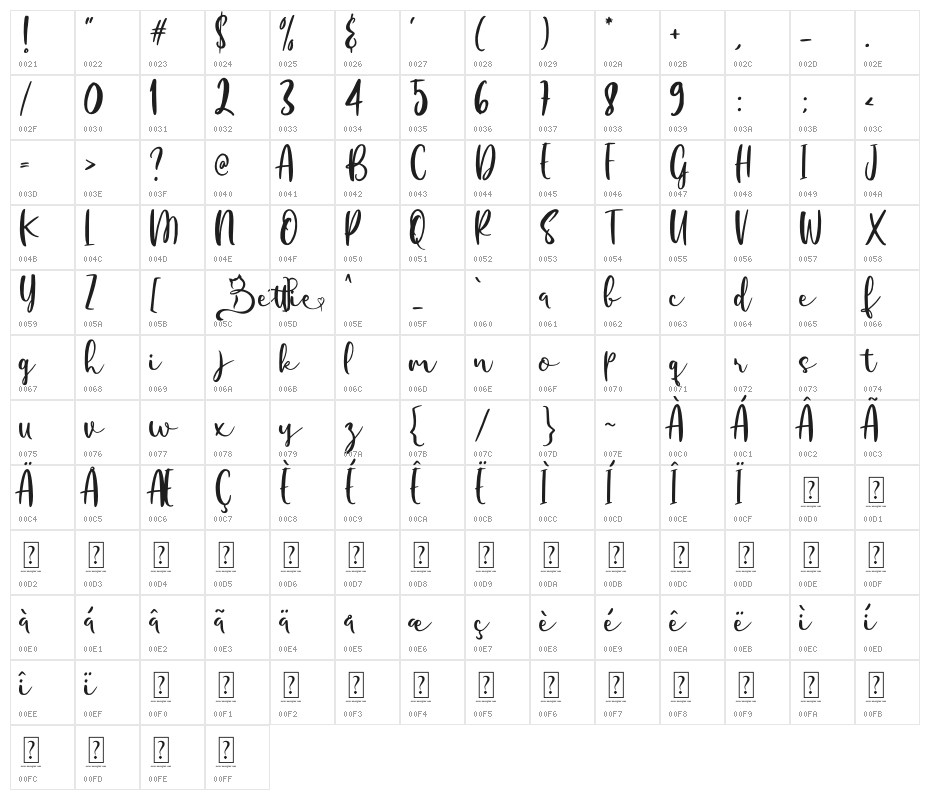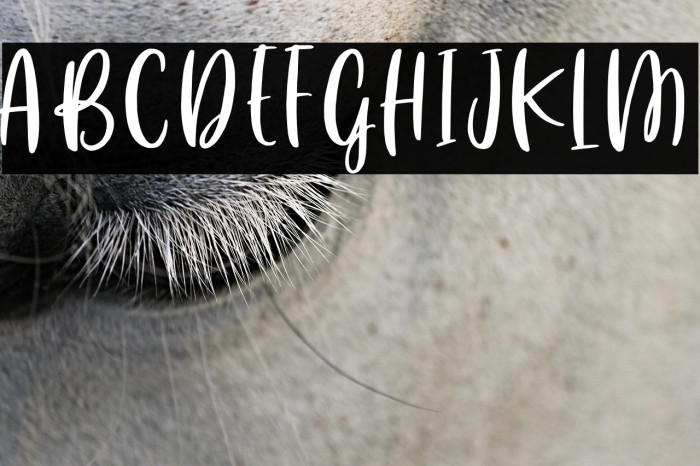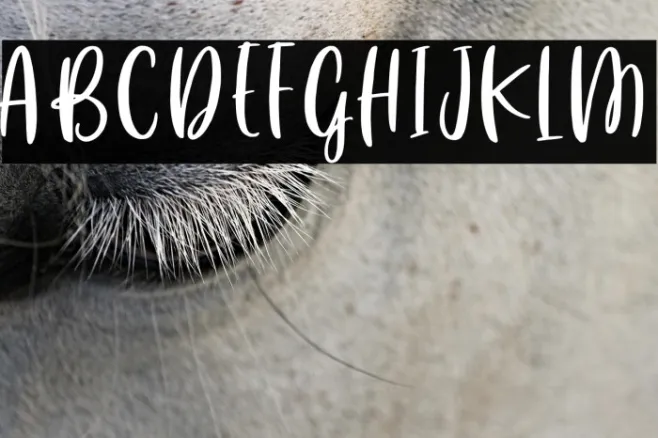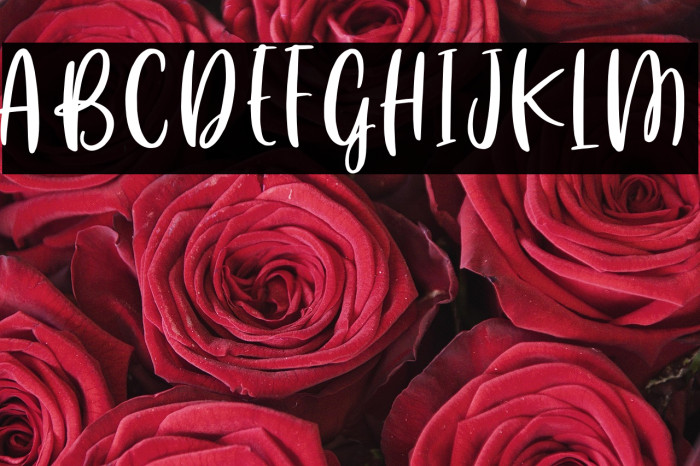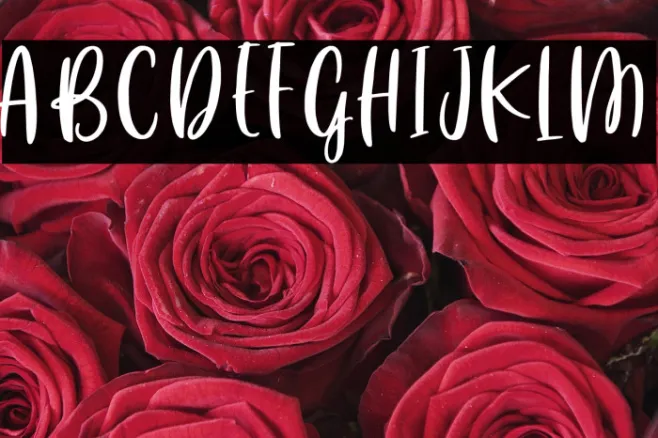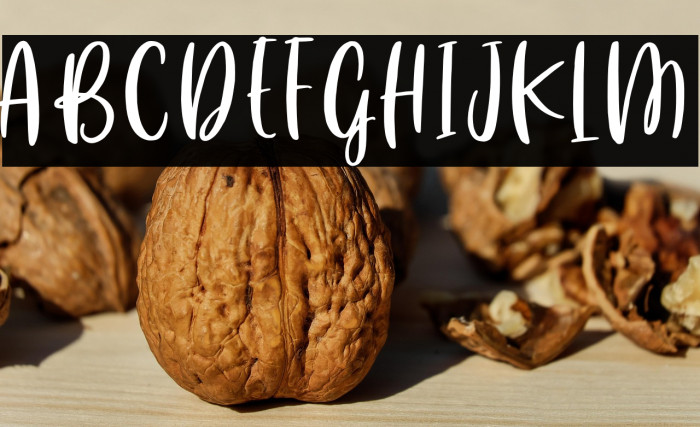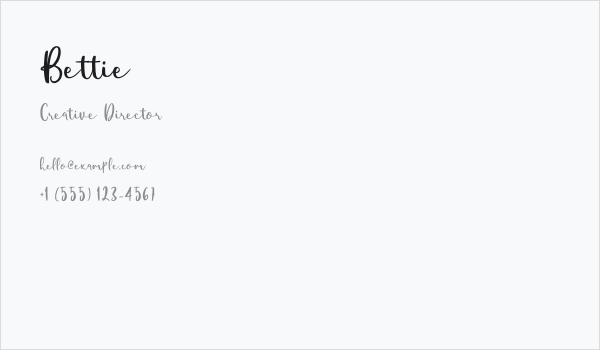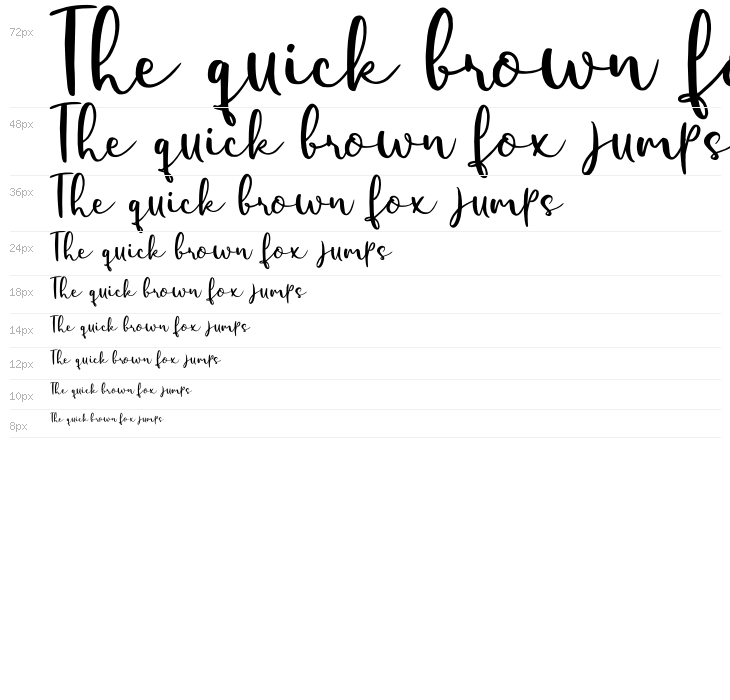
Bettie Font
Bettie Description
This font features a lively and expressive handwritten style, characterized by its fluid and dynamic strokes. The uppercase letters are bold and slightly slanted, giving a sense of movement and energy. The lowercase letters maintain a consistent flow, with some letters featuring playful loops and curves. The numerals are distinct and maintain the same energetic style, making them stand out. Special characters are creatively integrated, adding to the font's overall charm. This font is perfect for projects that require a personal touch, such as invitations, greeting cards, or branding materials.